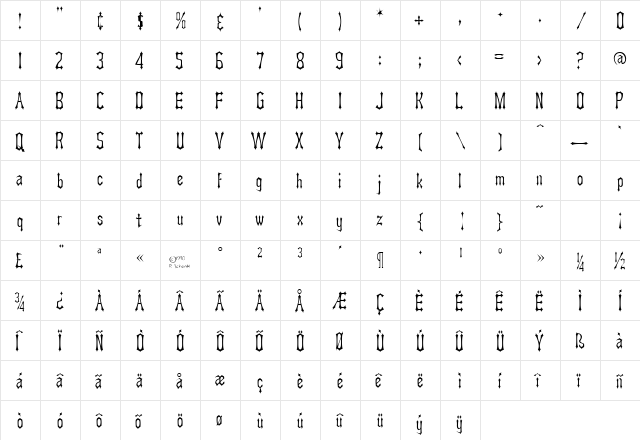
Asterx Regular
Design Context for Asterx Typeface
Asterx is a composed and adaptable typeface that performs quietly and consistently across a wide range of design contexts.